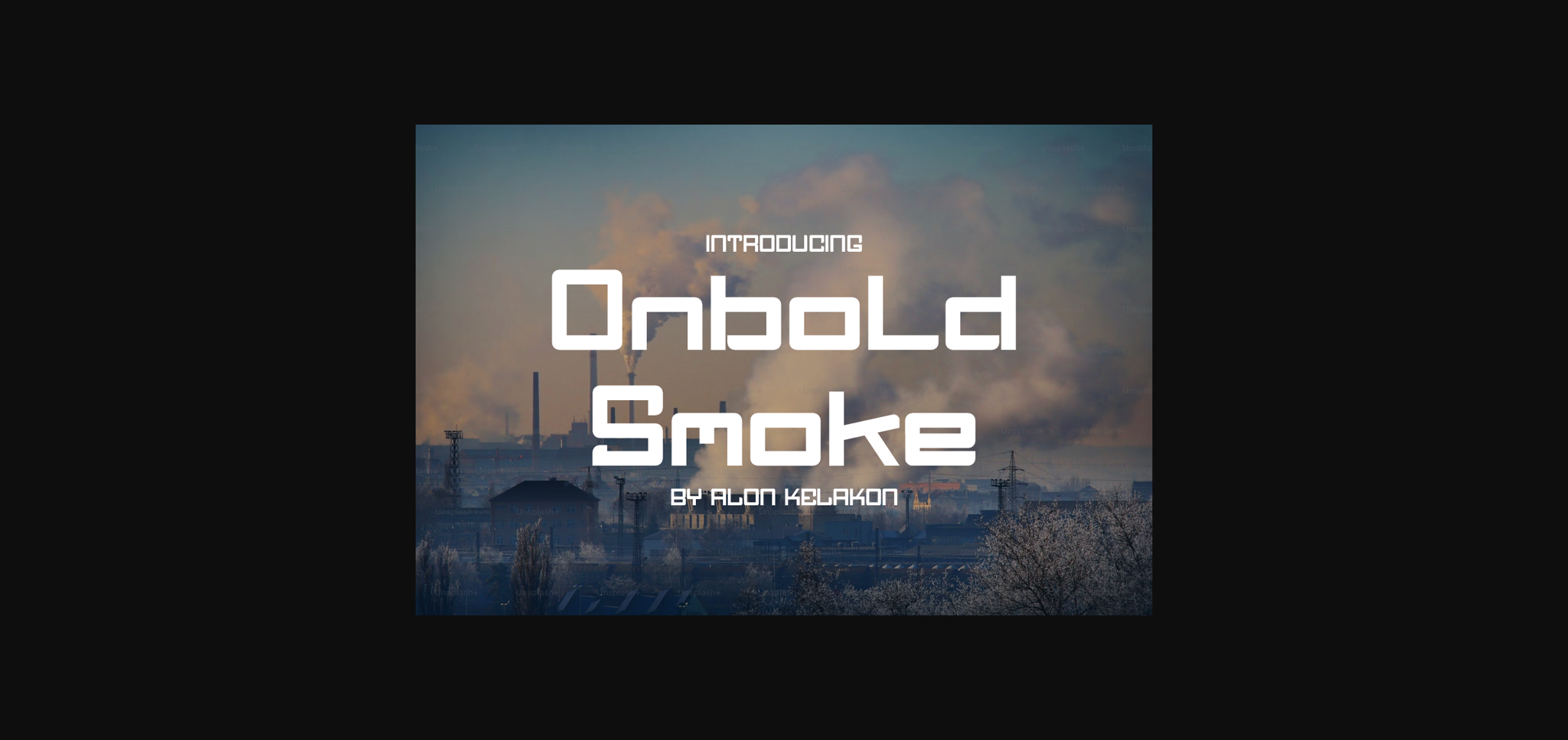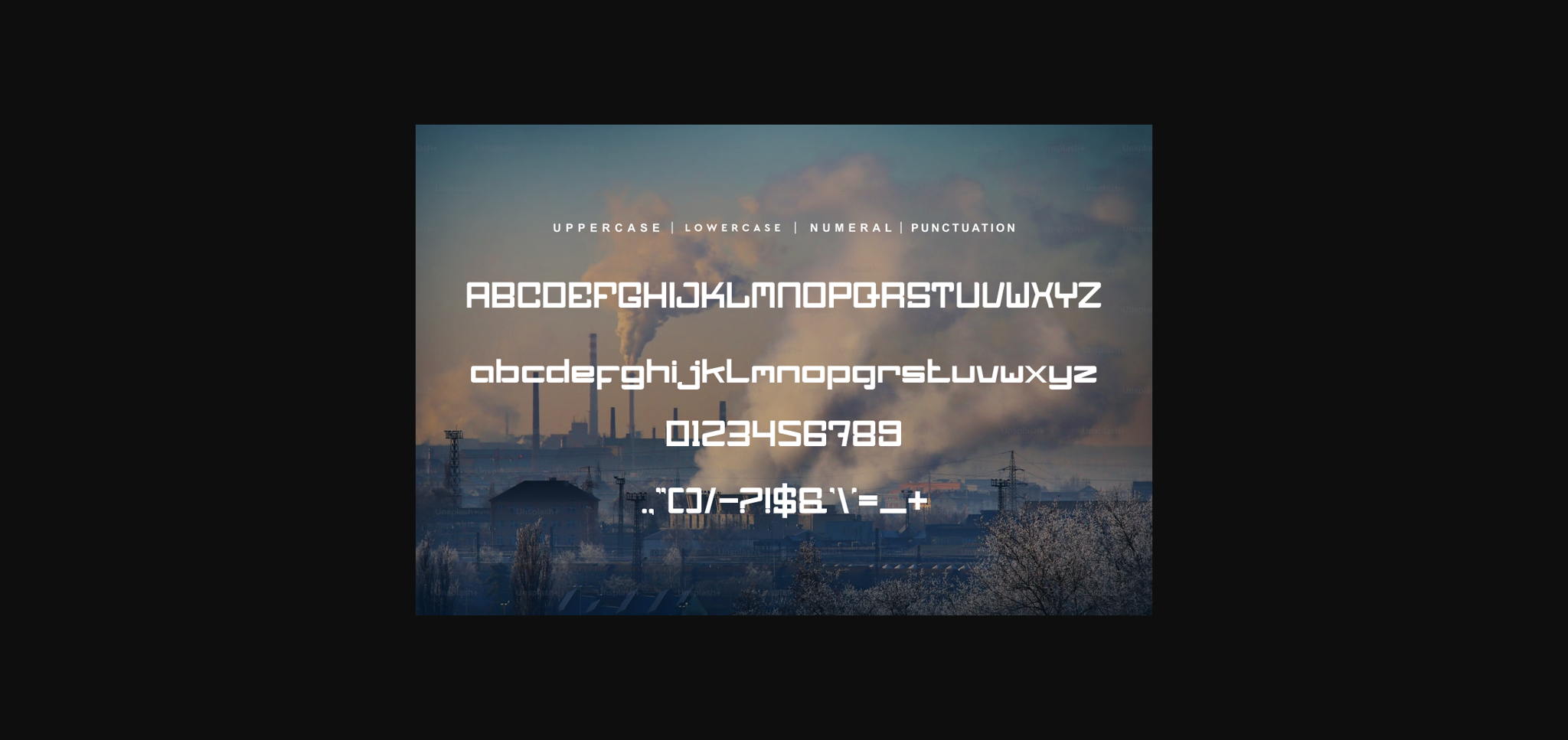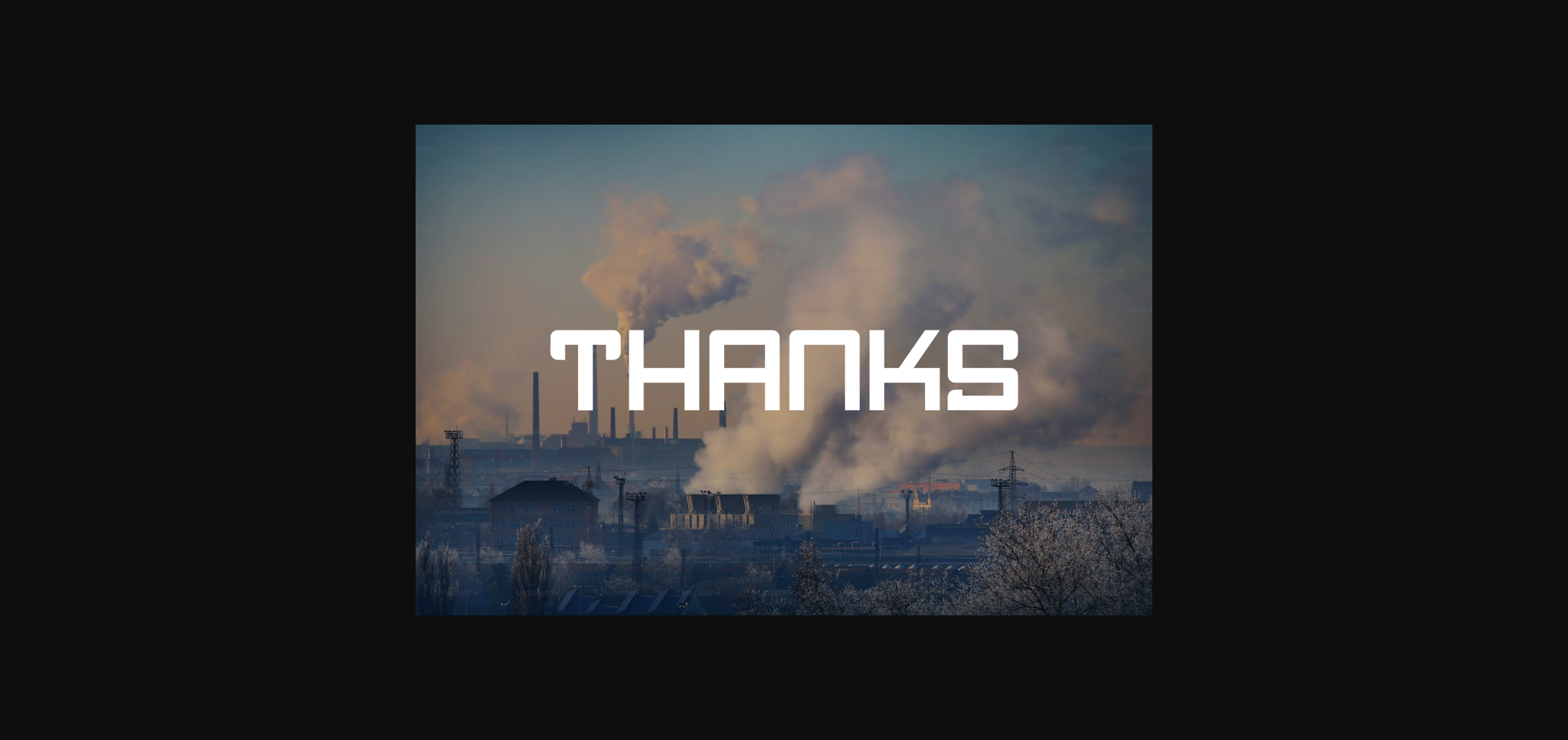
Onbold Smoke Font
About Onbold Smoke Font
Immerse yourself in the stunning elegance of the Onbold Smoke Font. This one-of-a-kind style offers a distinctive aesthetic perfect for an array of applications. Unleash its potential in your next movie scene or poster design, make a crowd-catching statement on gig promotions or album covers, or even add an artistic touch to your logos. Notably, the Onbold Smoke Font is easily accessible in OTF, TTF, and WOFF formats, providing flexibility and convenience for any mode of digital creativity. Experience the versatility and uniqueness of Onbold Smoke Font in your design journey today.